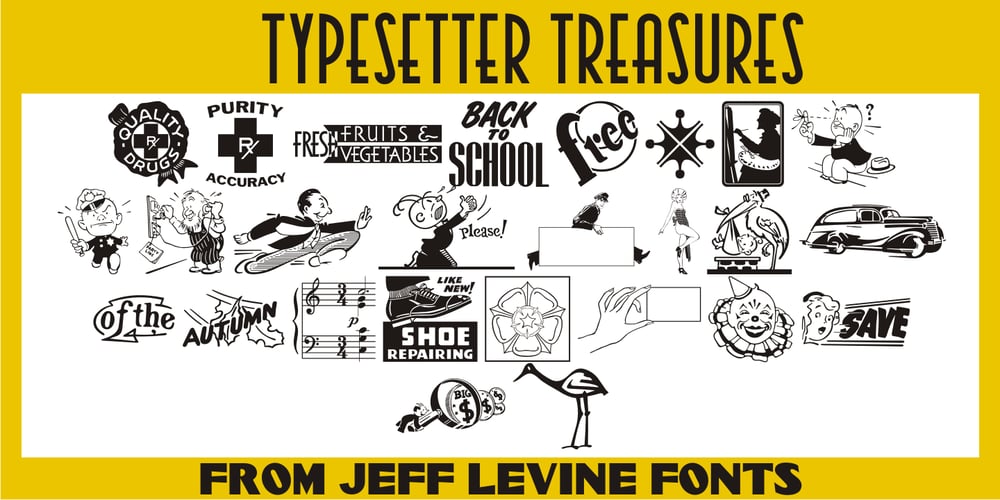
Typesetter Treasures JNL Font Family was designed by Jeff Levine and published by Jeff Levine. Typesetter Treasures JNL contains 1 styles and family package options. Cartoon cuts, sales builders, catchwords, mortised cuts, decorative embellishments and stock art are what comprise the images found within Typesetter Treasures JNL. Redrawn from vintage sources, these nostalgic illustrations add warmth and charm to any print or web project.